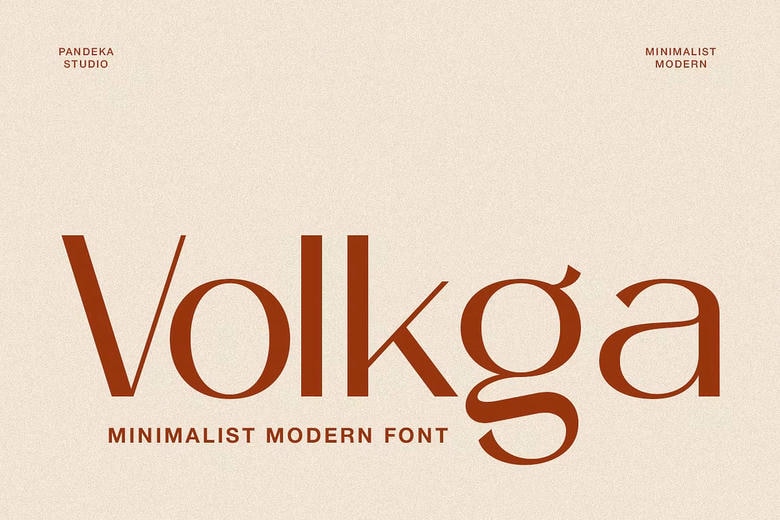
Volkga Font
Volkga is a simple, modern, and minimalist sans serif font that suits to brand skincare, beauty, and lifestyle. It has a usual style, with simplistic geometrical shapes and proportions that make any design appear elegant, clear, and sophisticated.
Designing logos, cosmetic packaging, product labels, social media and editorial design, Volkga is all-purpose and may be used by brands that require conveying trust, purity, and eternal beauty.
Volkga Sans Serif Font